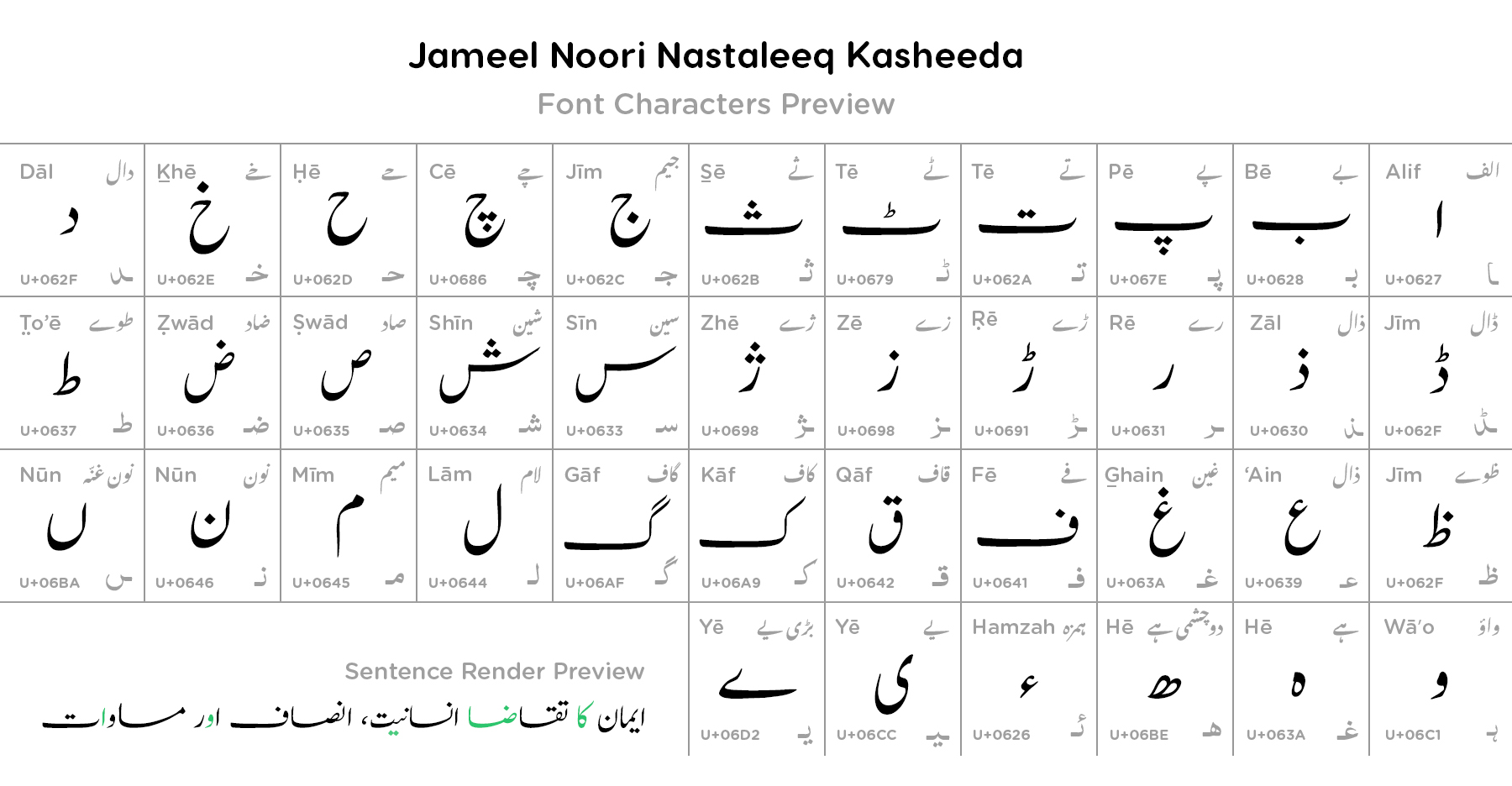
Jameel Noori Nastaleeq Kasheeda is a variant of Jameel Noori Nastaleeq font family which was the originally designed and released by Ahmad Jameel Mirza under the trademark of Monotype in 1981. It was the one of the earliest Nastali’q calligraphy typeface and has the honor of being the very first and only OpenType Font with Kasheeda. Kashida, also known as Tatweel, is a way to justify text in languages that use scripts like Arabic and Urdu. Unlike English, where spaces between words are adjusted to align the text, Kashida works by extending specific characters. Noori Nastaleeq Kasheeda has an extensive charset of 380, comprising letters, symbols, punctuations, and more. Also, the font provides a massive glyph count of 19671, offering enough versatility across different languages and design applications. The font presents a Qalam writing style with beautifully designed bold letters and long Kasheedas. This adds a unique sensual touch to its modern yet classical appeal, making it one of the most desirable fonts for Urdu writing all across the world. However, if you like this font, also check out Jameel Noori Nastaleeq and learn more about this classical Urdu Font Family in detail.